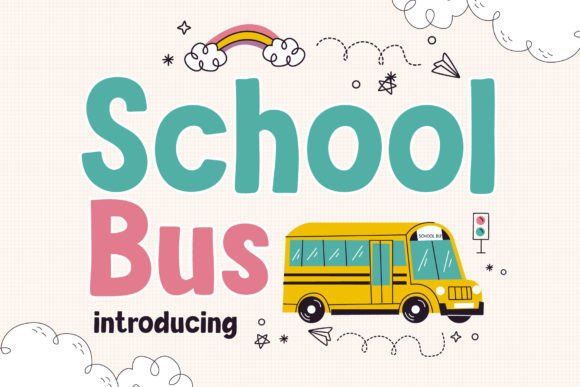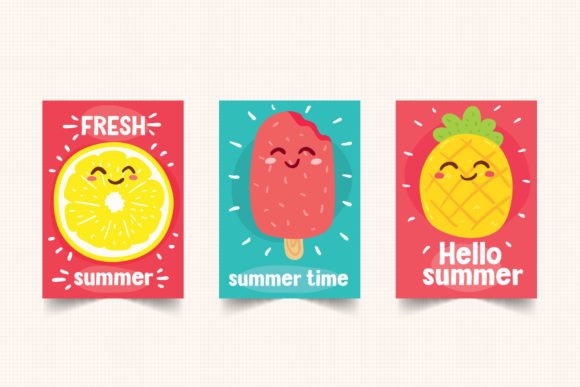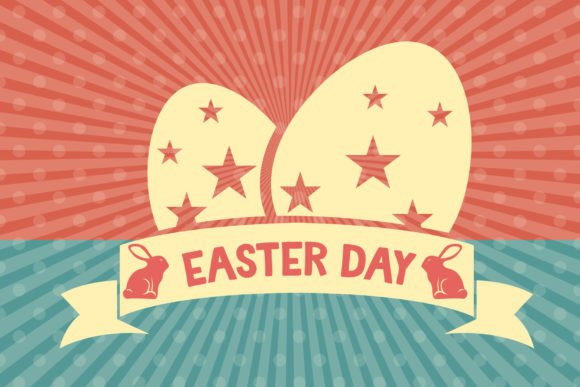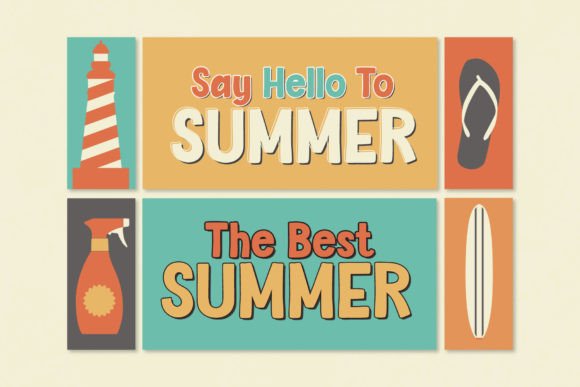
School Bus Font: A Playful Display Font for Kids’ Designs!
About the School Bus Font
The School Bus Font offers a perfect balance of form and function for your design needs. School Bus is a bold and distinctive display font that exudes confidence and fun. With its unique style, it is perfect for a wide variety of creative projects, including children’s designs, greeting cards, posters, logos, and more!
School Bus Font Usage Examples
School Bus Font Example